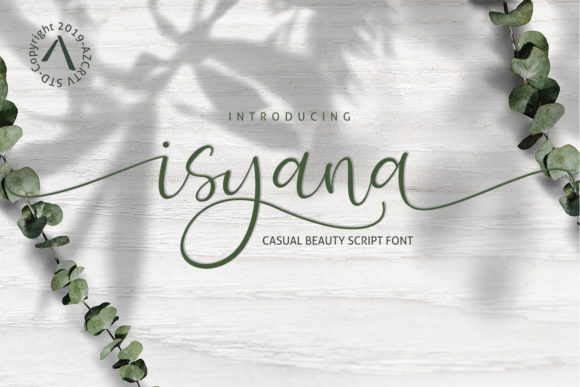
Isyana Script Font
Font Name : Isyana Script Font
Author : Azcreative Studio
Dive into the enchanting world of Isyana Script, a captivating script font that will ignite your creativity and leave a lasting impression on your designs. Step into a realm of elegance and sophistication with this meticulously crafted font, designed to evoke the charm of classic calligraphy while adding a touch of modern flair.
Isyana Script's delicate curves and graceful flourishes dance across the page, creating a visually stunning masterpiece. Its timeless aesthetic and authentic lettering invoke a sense of nostalgia and romance, making it the perfect choice for any project that demands a touch of allure and sophistication.
Let your imagination soar as you explore the endless possibilities of Isyana Script. Its versatility knows no bounds, effortlessly adapting to a wide range of designs. From elegant wedding invitations to enchanting branding materials, Isyana Script weaves its magic, transforming your creations into captivating works of art.
Prepare to be mesmerized by its enchanting beauty and inspired by its classic appeal. Isyana Script is more than just a font; it's a key that unlocks the door to a world of endless creative possibilities. Embrace its timeless elegance and let Isyana Script elevate your designs to new heights.